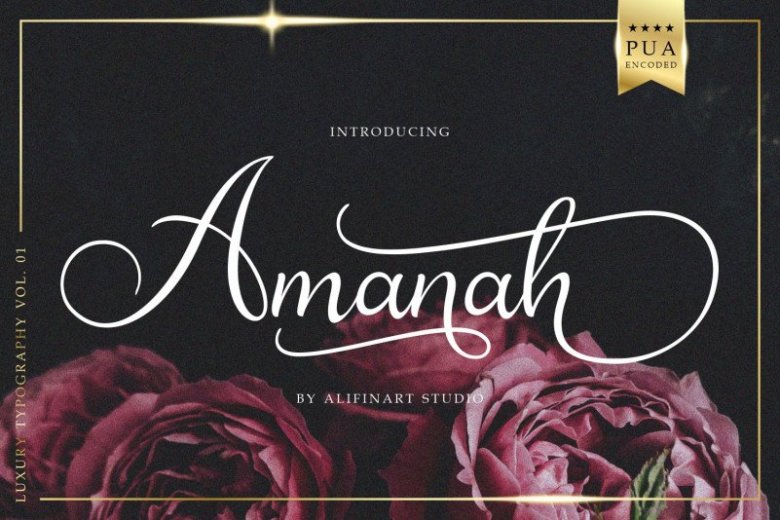
Amanah Font
Amanah Script is a handwritten font with a casual and modern calligraphy style. This font offers a large number of Stylistic Alternates, as well as beginning and ending swashes.
This font has a total of 1660 glyphs, including capital letters, lowercase, numeral and punctuation, multilingual accents, swashes, and includes a large number of stylistic alternates and heart swashes (for lowercase letters).
Amanah Script can be used for wedding card designs, invitation, best for photographer, traveling, blogging watermark or craft.
Amanah Calligraphy Font